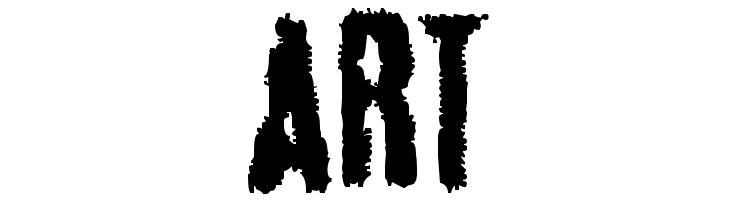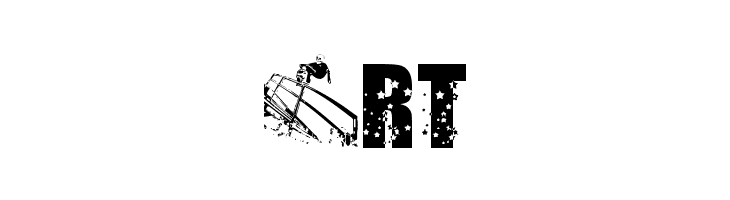
A bold, graffiti-inspired font with dynamic, angular shapes.
A dynamic and edgy font with sharp, elongated strokes and a bold appearance.
A bold, distressed font with a grunge, urban aesthetic.
A bold, edgy font with sharp, jagged edges and a dynamic, graffiti-like style.
A bold, distressed font with a grunge aesthetic and textured, hand-drawn appearance.
A bold, grunge-style font with sharp, distressed characters.
A bold, jagged, hand-drawn font with an aggressive and energetic style.
A bold, angular font with a dynamic and edgy style.
A bold, playful font with a graffiti-like, urban style.
A bold, distressed font with star cutouts, ideal for edgy designs.